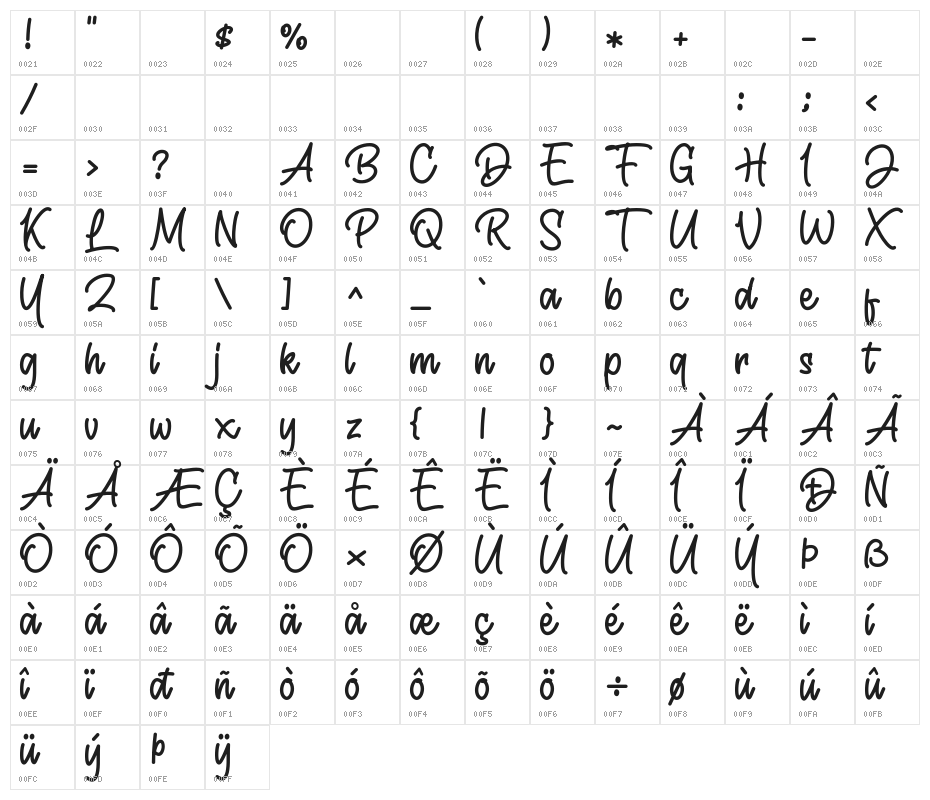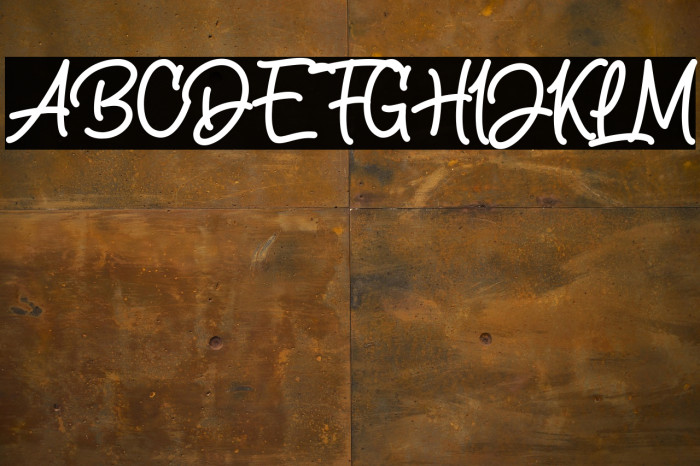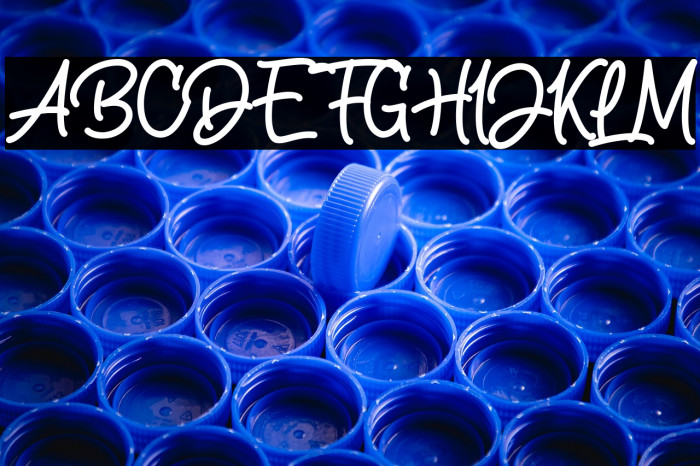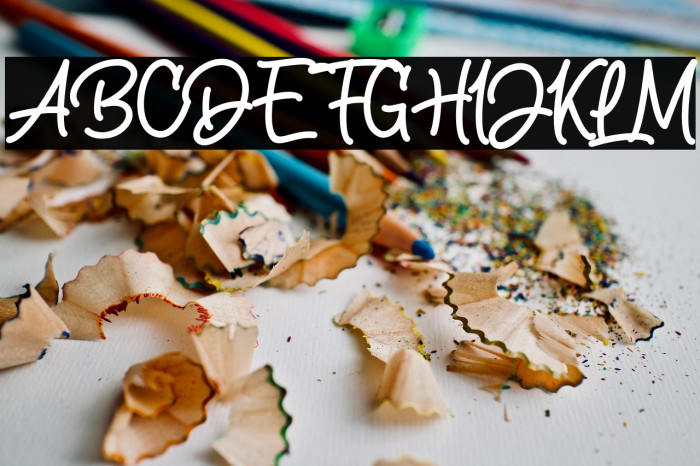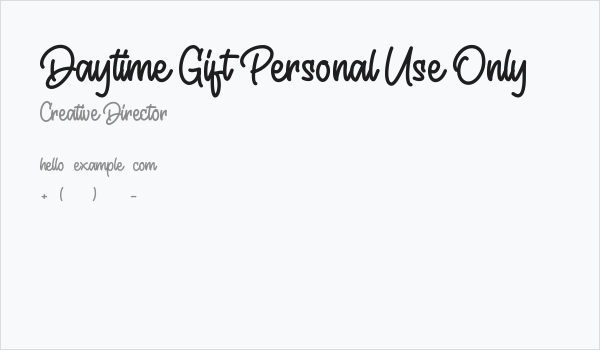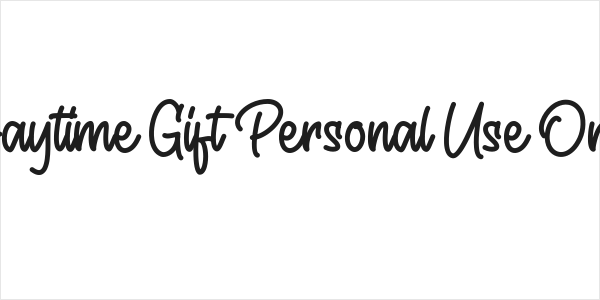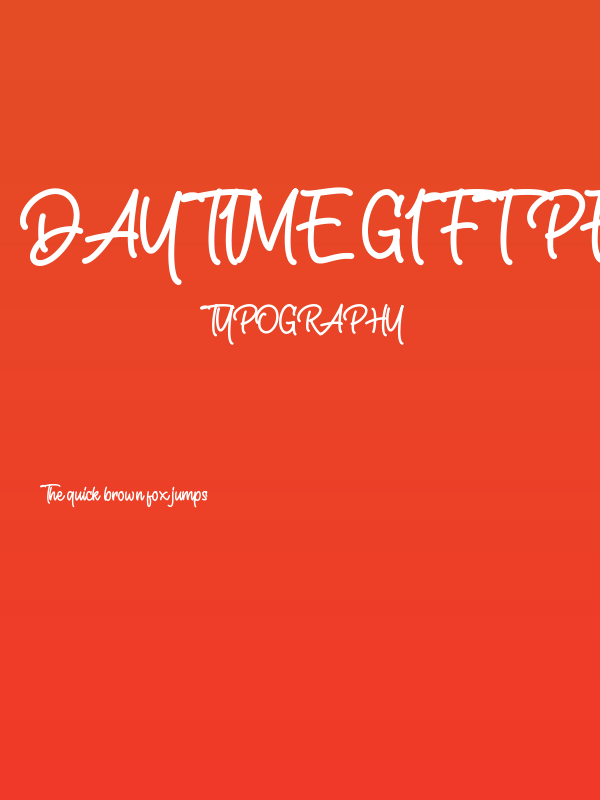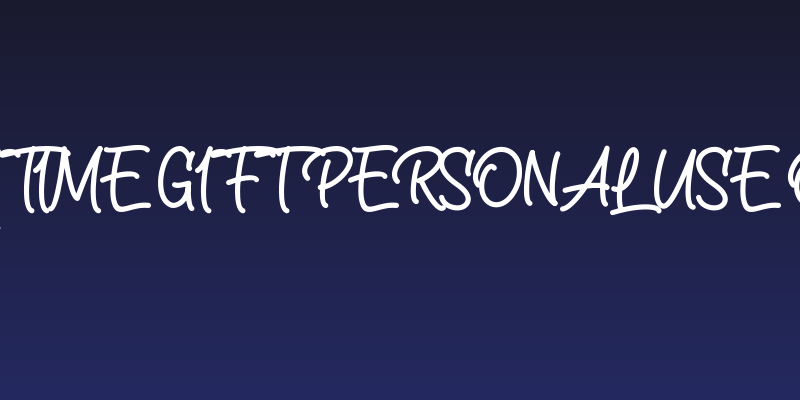
Daytime Gift Personal Use Only Font
Daytime Gift Personal Use Only Description
This font exhibits a playful and energetic handwritten style, characterized by its fluid and connected letterforms. The uppercase letters maintain a consistent height with a slight slant, giving them a dynamic appearance. The lowercase letters are more rounded and feature distinctive loops and curves, adding to the font's whimsical charm. The numerals and special characters are designed to match the overall style, ensuring cohesion across all elements. This font is ideal for projects that require a personal and informal touch, such as greeting cards, invitations, and playful branding.
| Overall Style | Playful, Energetic |
| Proposed Projects | Greeting cards, invitations, playful branding, personal projects. |